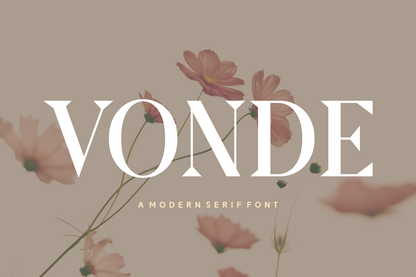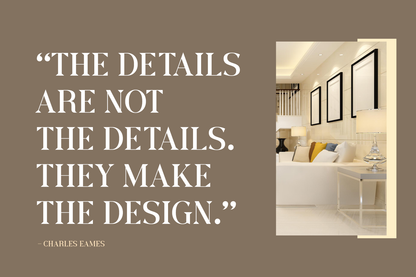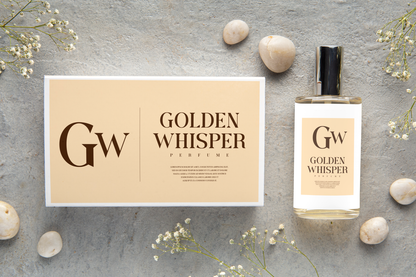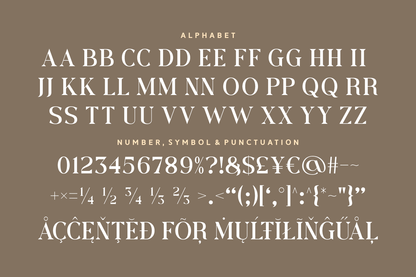
Vonde is a modern serif font that blends clean lines with high fashion aesthetics. Its sharp serifs and contemporary structure make it ideal for upscale branding, elegant packaging, and magazine spreads. With a bold presence and graceful form, Vonde brings confidence to any design it touches.
Whether used for headlines or logos, Vonde maintains balance and clarity while making a strong impression. It’s the perfect serif for creatives aiming for sophistication and simplicity.